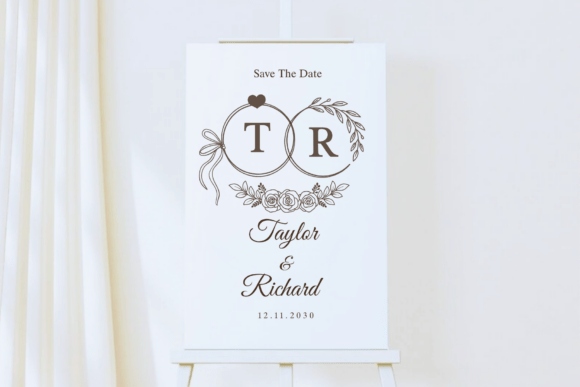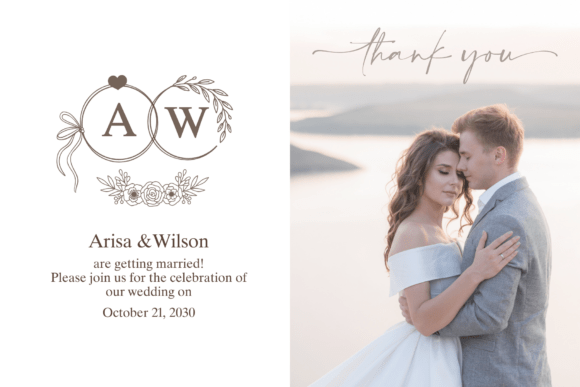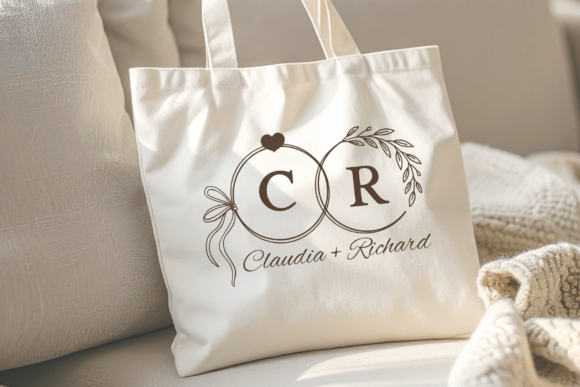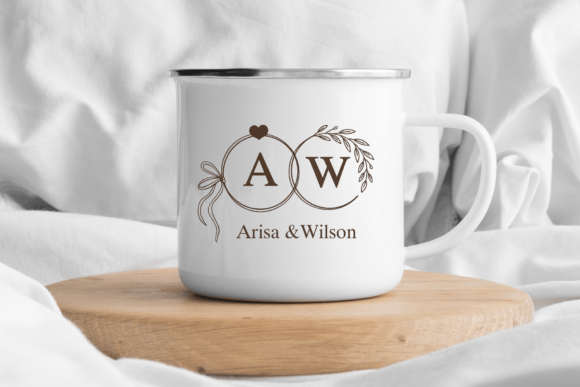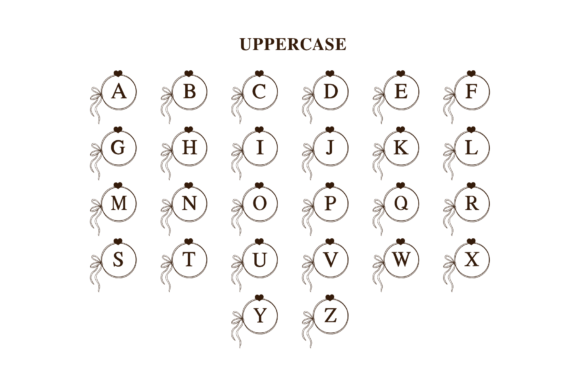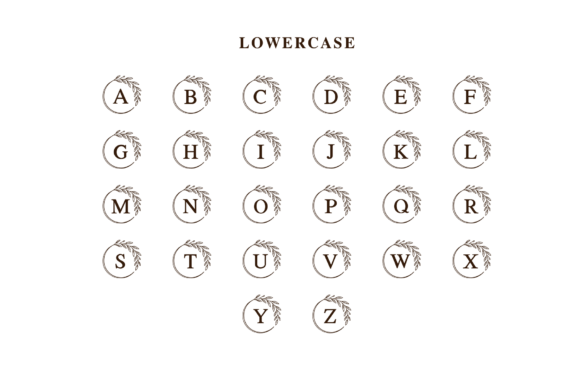
Introduction to Luxury Wedding Monogram Font
Luxury Wedding Monogram is an elegant and timeless monogram alphabet featuring romantic heart accents, delicate ribbon bows, and botanical wreath elements.
This complete A–Z wedding alphabet is perfect for creating personalized wedding initials, invitations, logos, bridal decor, engagement designs, anniversary gifts, Cricut projects, vinyl decals, and luxury wedding crafts Designed with a soft romantic and minimalist aesthetic, this monogram set adds a sophisticated and stylish touch to modern wedding creations.
Key Features of Luxury Wedding Monogram Font
Why Choose Luxury Wedding Monogram Font?
Luxury Wedding Monogram Font offers exceptional quality and versatility, making it a valuable addition to your design toolkit. Whether you’re creating for personal projects or commercial use, Luxury Wedding Monogram Font delivers professional results.